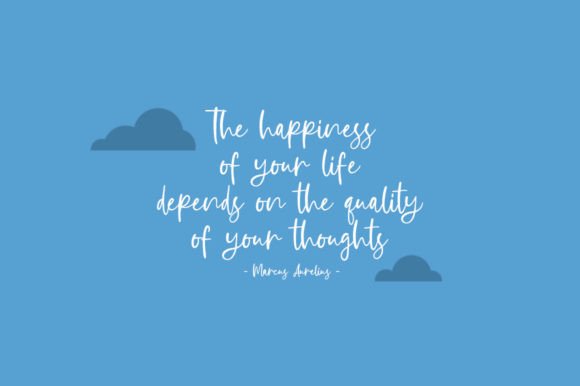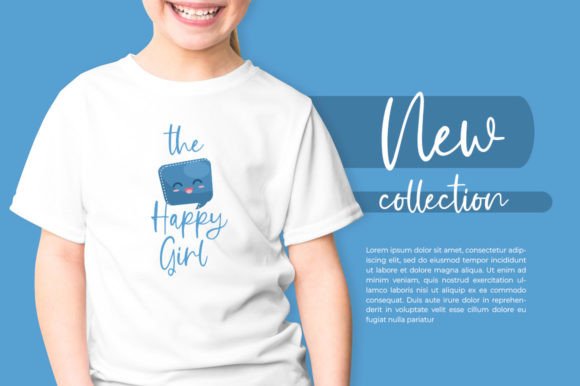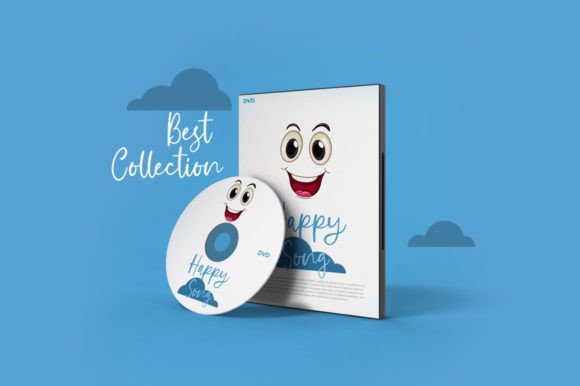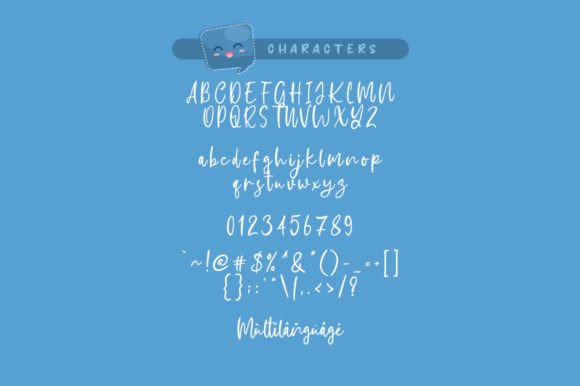
The Perfect Smile: Unleashing Creativity with Carolina Smile Font
Have you ever been stuck on a design project, staring blankly at your computer screen, desperately searching for the perfect font to bring your creation to life? That’s exactly where I was a few months ago, trying to craft a whimsical cartoon character’s logo. The moment I stumbled upon the Carolina Smile Font, I knew I had found the missing piece to my design puzzle.
The Carolina Smile Font is a delightful calligraphy script that exudes warmth and friendliness, making it the perfect companion for any playful design project. Whether you’re designing a children’s game, a cartoon character’s logo, or simply a poster that needs a dash of fun, this font is sure to bring a smile to your audience’s faces.
For designers looking to add a touch of personality to their work, the Carolina Smile Font is a valuable asset. Its unique charm and versatility make it an excellent choice for a wide range of projects, from branding to advertising, and even personal projects like handmade cards and invitations.
Carolina Smile Font Key Features
- Font Size: The font comes in 4 different sizes: 100, 200, 300, and 400, each with its own unique characteristics and usage.
- Resolution: The font is designed to be scalable and can be used at various resolutions, from 72 dpi to 300 dpi, without losing its quality.
- Unique Characteristics: The Carolina Smile font is known for its friendly and approachable feel, making it perfect for use in children’s books, magazines, and other publications that require a warm and inviting tone.
- Font Style: The font has a casual and cursive feel, with subtle flourishes and rounded edges that give it a playful and creative touch.
Carolina Smile Font Review
I recently had the chance to work with the Carolina Smile Font, and I have to say, it’s a unique and charming addition to any design project. ✨ The font’s hand-drawn feel gives it a warm and inviting quality that’s perfect for branding and advertising. It’s also highly customizable, making it a great choice for designers who want to add a personal touch to their work.
- ✨ The font’s whimsical feel is perfect for creative projects and adds a touch of personality to any design.
- ✨ The high level of customization options makes it easy to tailor the font to fit your specific design needs.
- ✨ The font is highly legible, even at smaller font sizes, making it a great choice for body text.
However, there are a few limitations to consider: ⚠️ The font may not be suitable for formal or corporate designs, as it has a more playful and casual feel. Additionally, the font’s customizability can sometimes make it feel a bit too “designerly” – it’s not always the best choice for projects where a more straightforward, clean aesthetic is desired.
Overall, I think the Carolina Smile Font is a great addition to any designer’s toolkit. While it may not be the best choice for every project, it’s a versatile and charming font that’s sure to add a touch of personality to any design.
The Carolina Smile Font is perfect for creating cheerful and approachable designs. Use it for:
- Social media posts and ads
- Event invitations and flyers
Remember to pair the Carolina Smile Font with other fonts that complement its playful and friendly vibe.
Is Carolina Smile available in various font weights and styles?
Yes, Carolina Smile is available in various font weights and styles, including light, regular, bold, and italic. You can use these different weights and styles to add visual interest and hierarchy to your design. However, be mindful of the number of font weights and styles you use, as too many can make your design look cluttered and overwhelming.